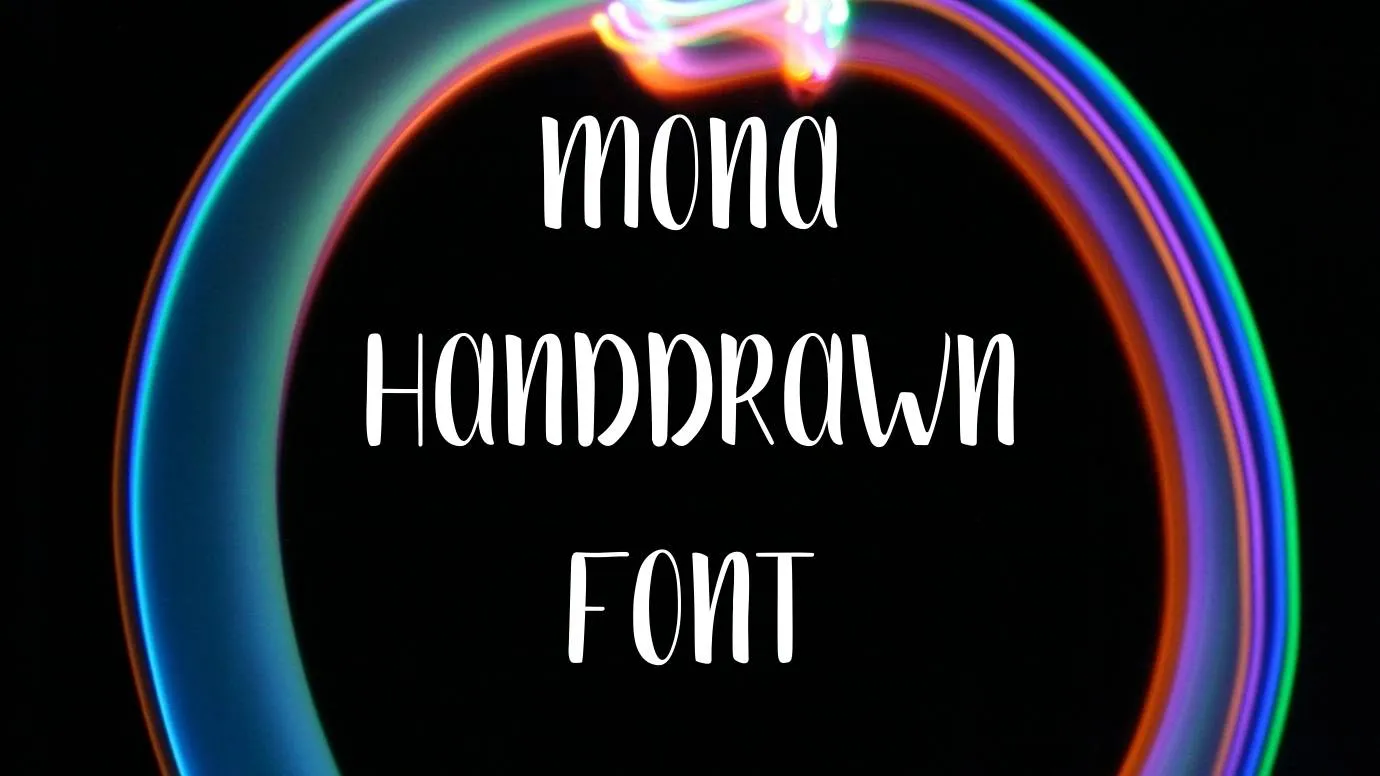
Mona Handdrawn Font Family is contemporary, hand-drawn font showcases both slender and robust traits. Its alluring features make it an excellent choice for various brush designs.
Mona Handdrawn Font